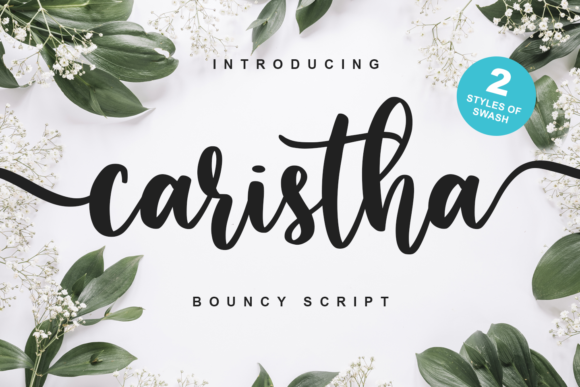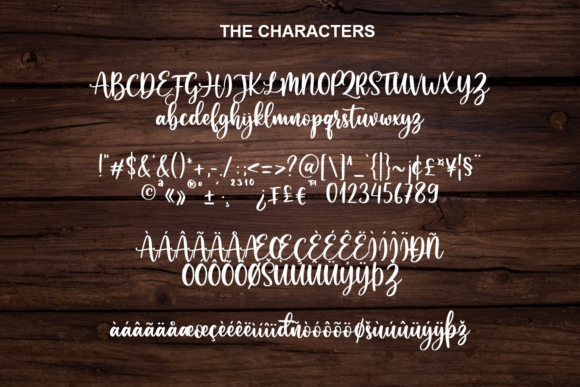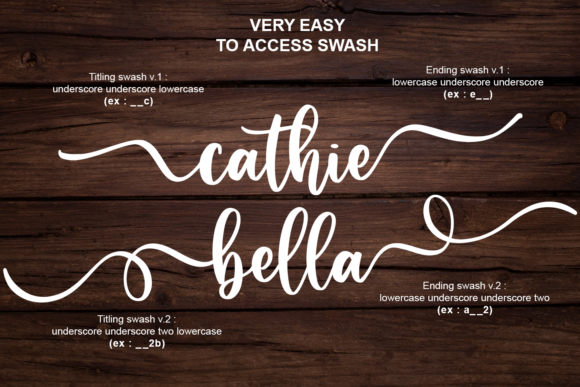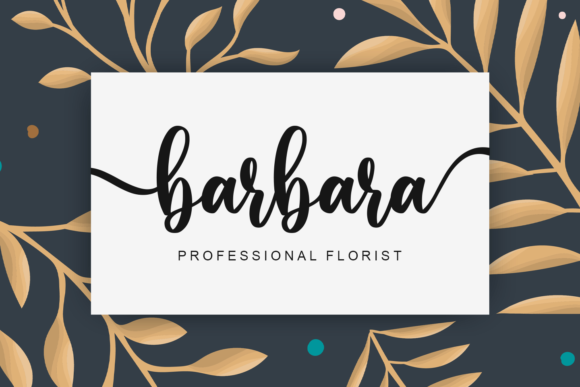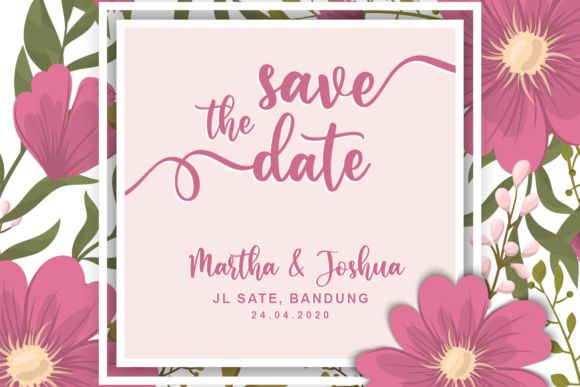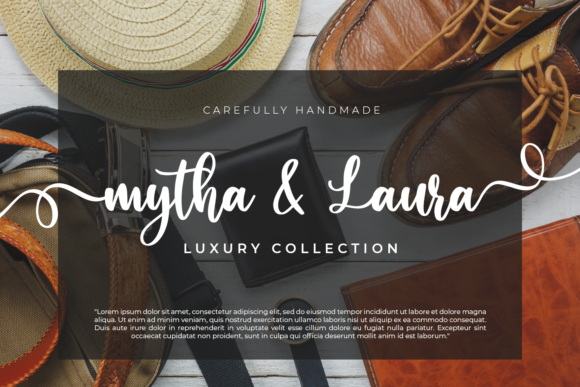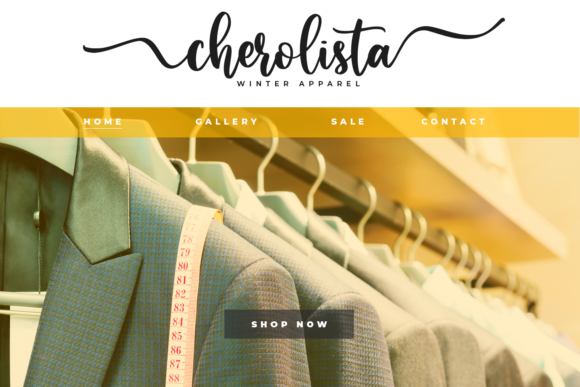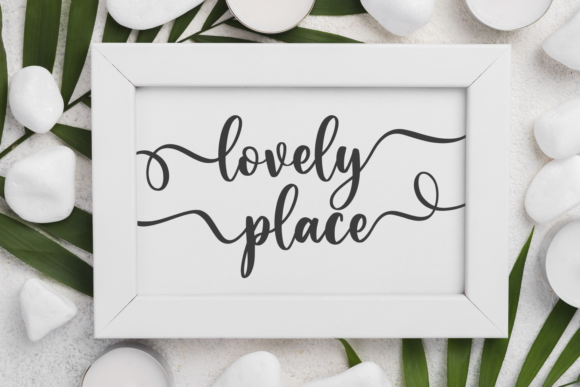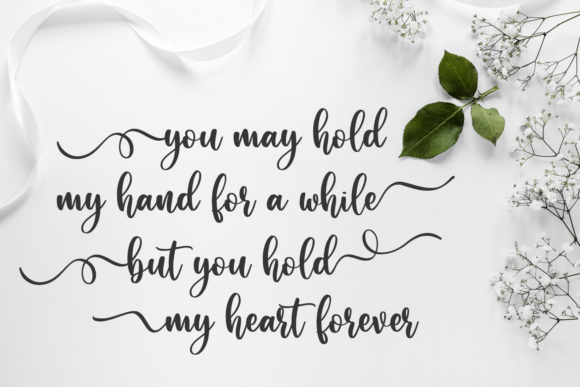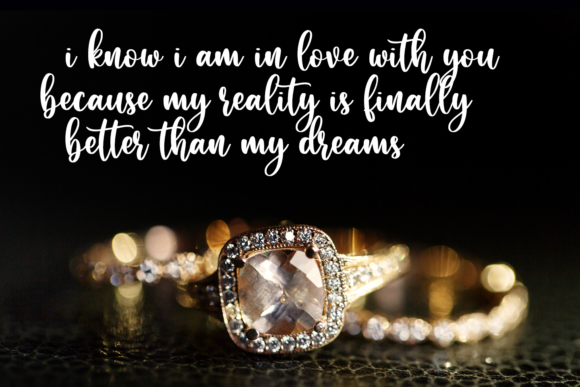
Caristha Font
About Caristha Font
Caristha is a sweet, soft hand-lettered font. Get inspired by its authentic feel and use it to create gorgeous wedding invitations, beautiful stationary art, eye-catching social media posts, and cute greeting cards. This font is PUA encoded which means you can access all of the amazing glyphs and swashes with ease! It also features a wealth of special features including alternate glyphs and ligatures.